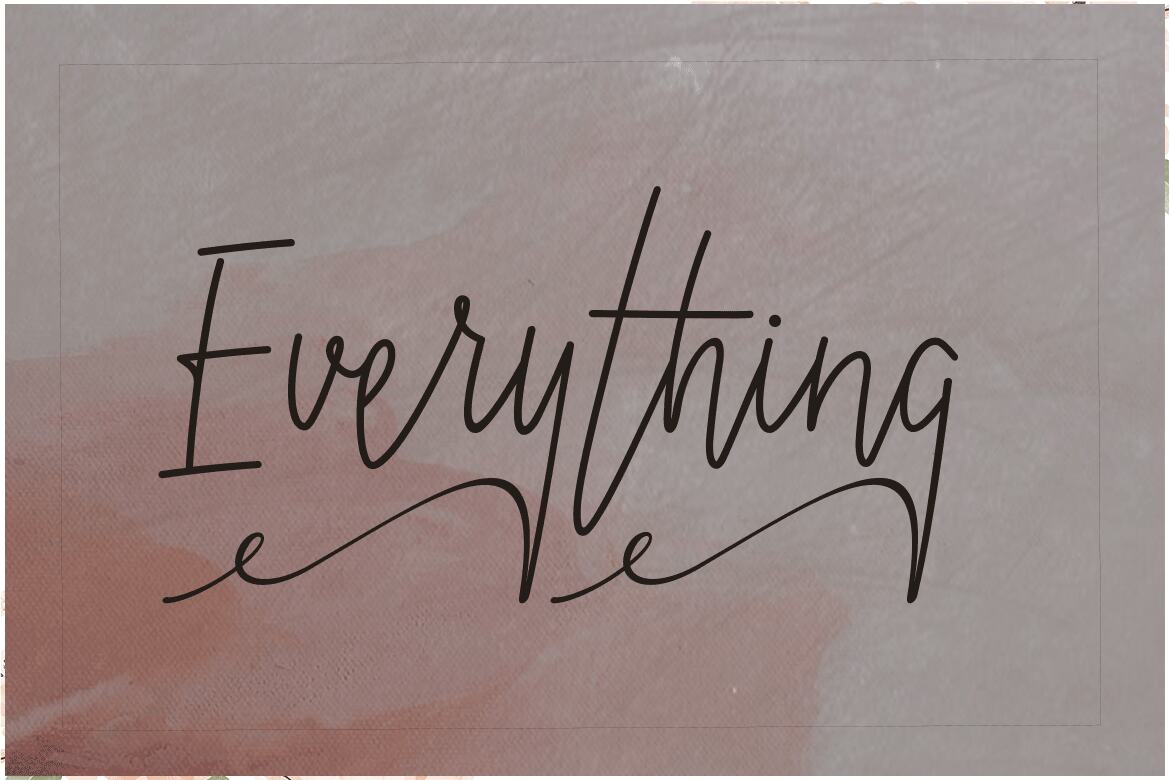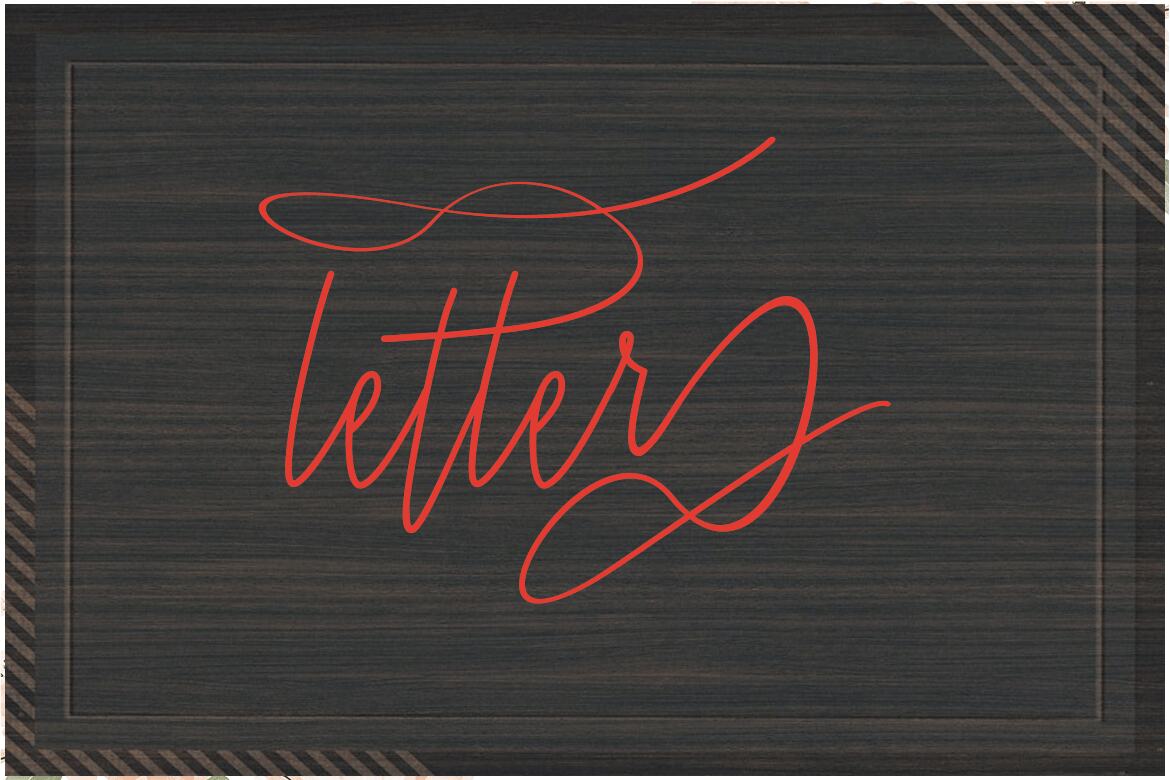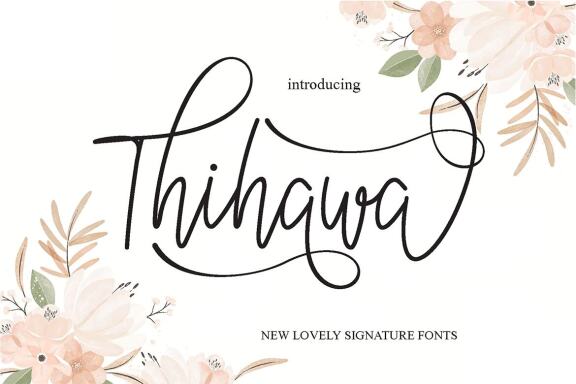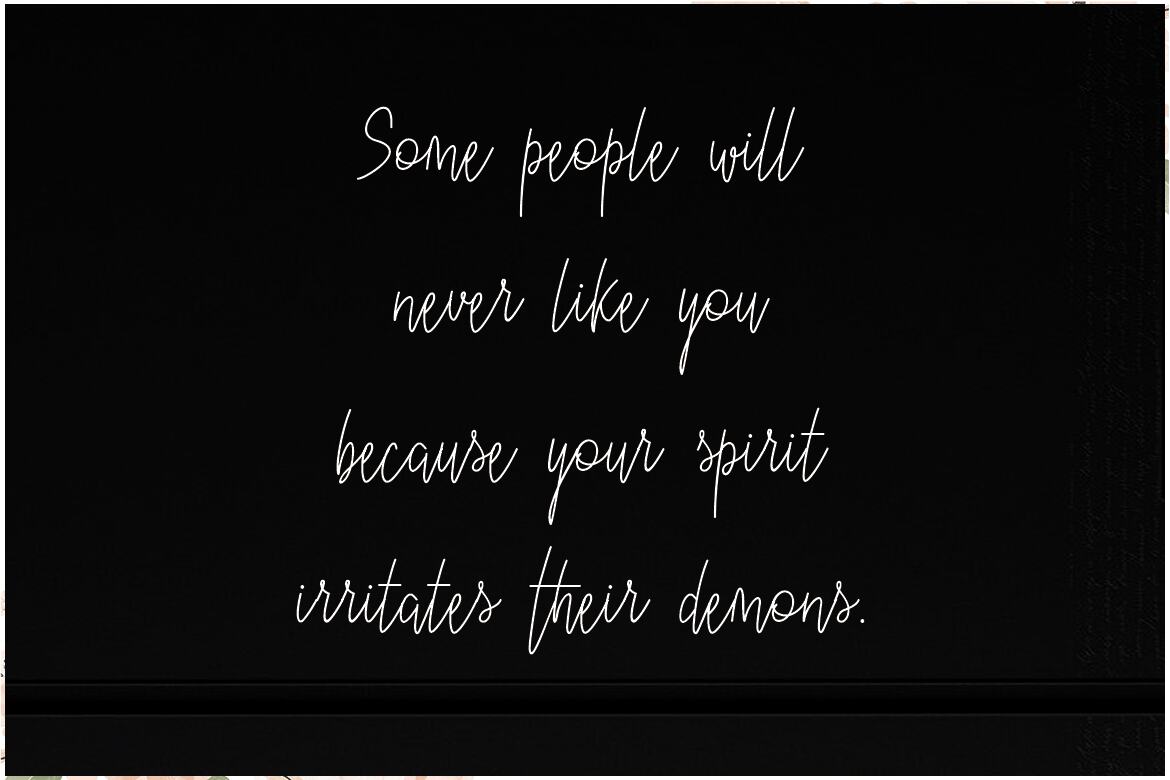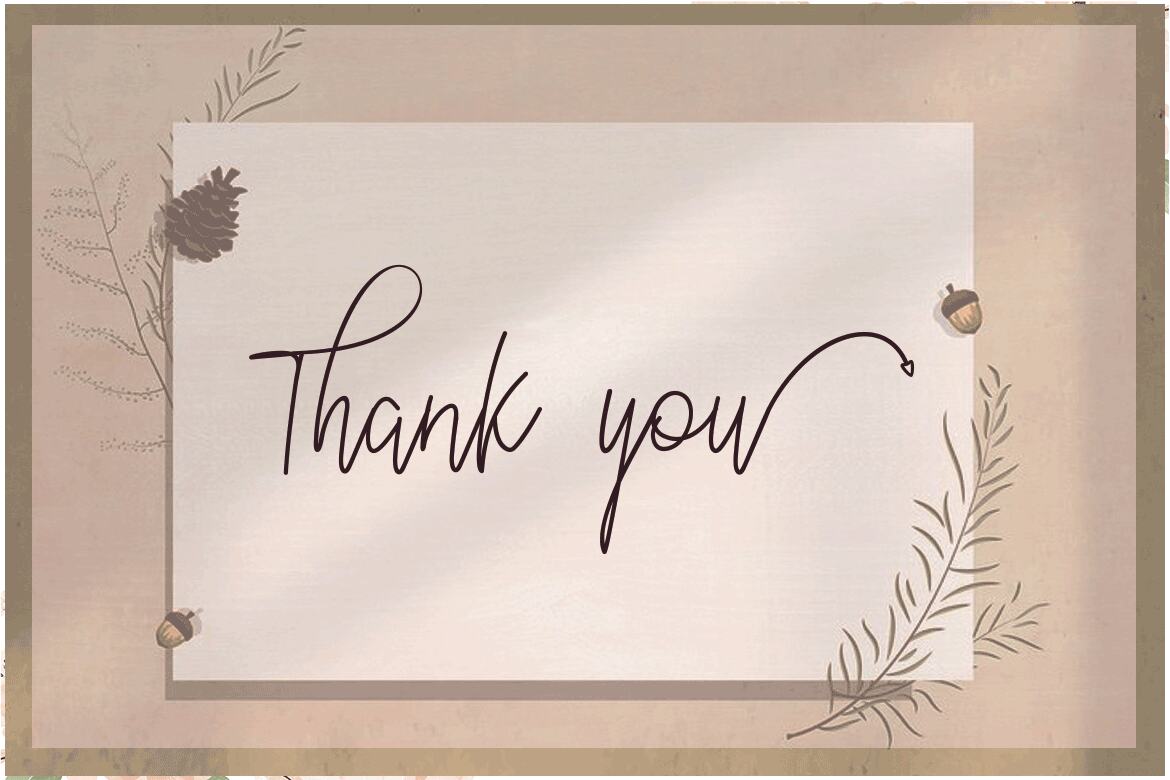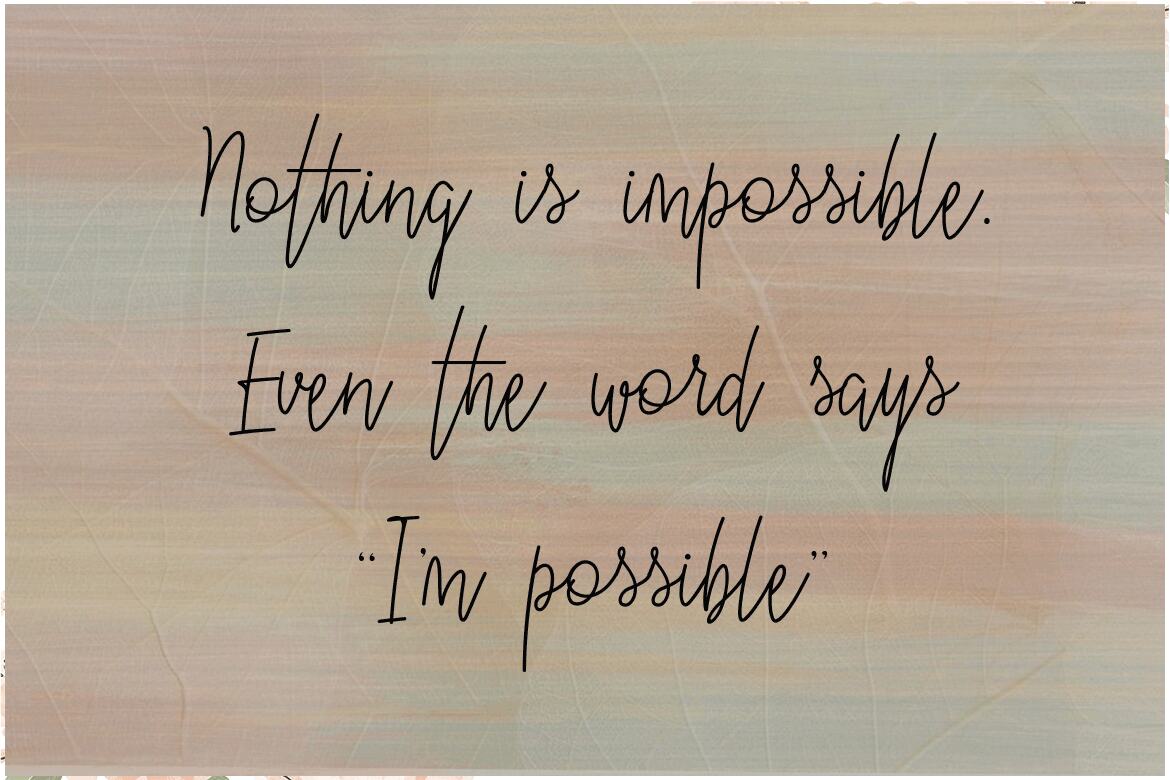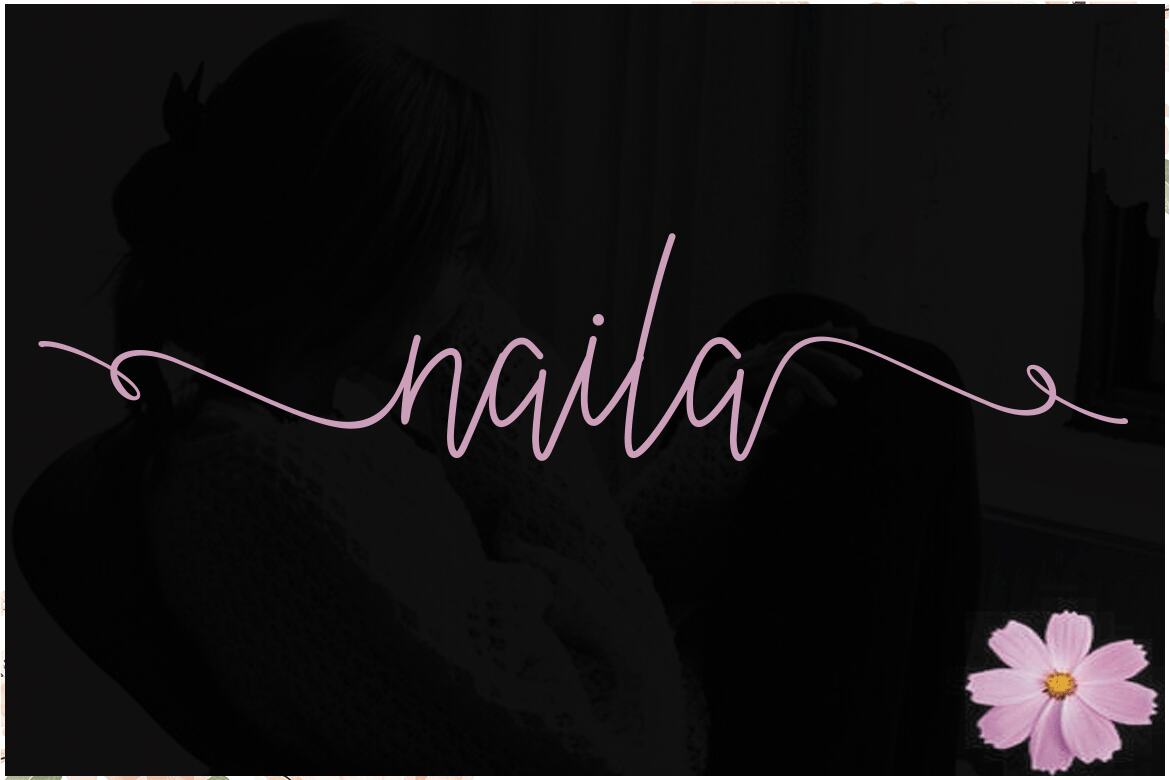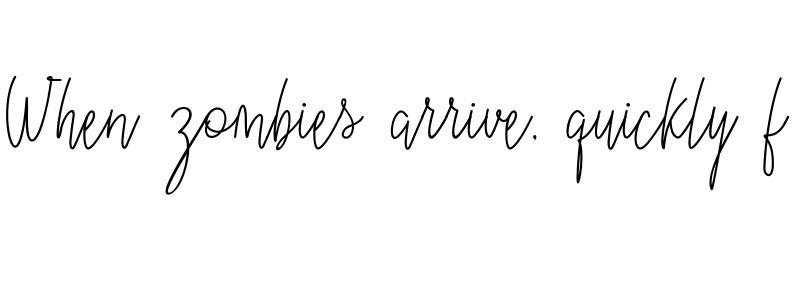
Thihawa - Free Script Font
Thihawa
hihawa Modern Calligraphy. This font was designed by handwriting, and it has a modern and unique forms of calligraphy, the writing style is very natural.
The Features of this fonts is;
Standart ligature
Stylistic Alternates
Contextual Alternate
Stylistic sets